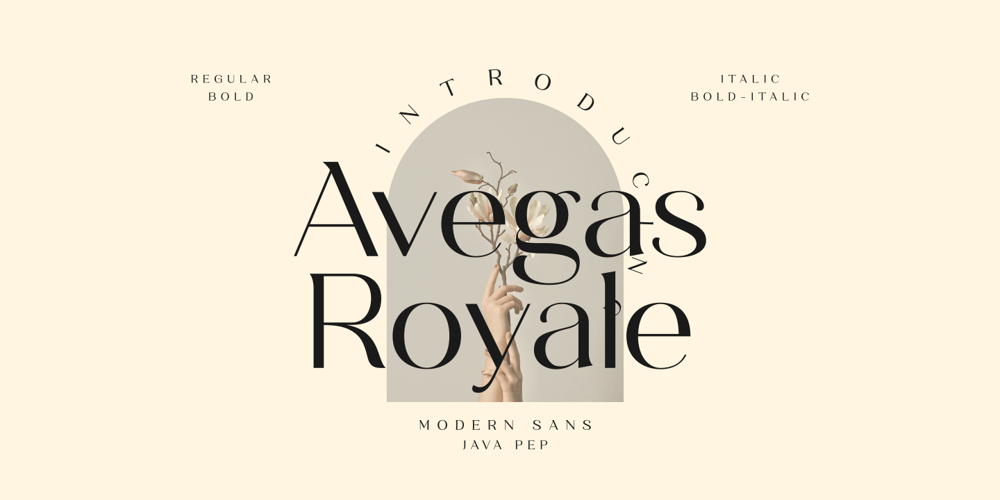
Avegas Royale Font Family was designed by Java Pep and published by Java Pep. Avegas Royale contains 4 styles and family package options. Avegas Royale font is modern sans serif font that is made in 4 styles regular, italic, bold, and bold-italic. The shape is made to contrast curves and lines between light and thick so that it looks more stylish and stands out. This font that perfect for logo, headline, advertising, quote text, invitation card, branding identity, and more.